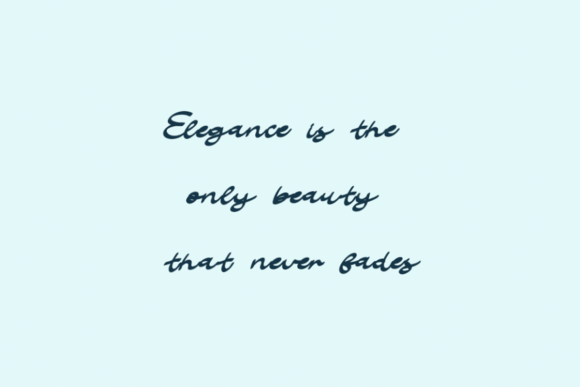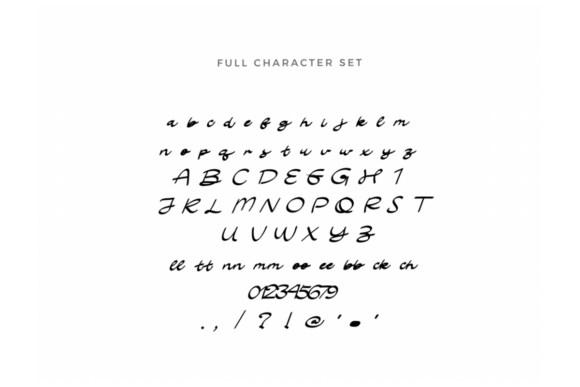
Unleash Your Creativity with Hadsley Font: The Ultimate Guide
Are you tired of using the same old fonts in your designs? Do you want to add a touch of elegance and whimsy to your creations? Look no further than Hadsley Font, a truly unique and charming script font that is sure to take your designs to the next level. In this article, we’ll dive into the world of Hadsley Font, exploring its characteristics, uses, and benefits, and why it’s a must-have for designers and crafters alike.
The Inspiration Behind Hadsley Font
Hadsley Font is inspired by the exquisite art of hand-lettering and calligraphy. Its characteristic features are a beautiful blend of traditional and modern techniques, making it a standout in the world of typography. The font’s creator has carefully crafted each letter to bring together the elegance of handwritten script with a modern twist, resulting in a font that is both sophisticated and playful.
The Characteristics of Hadsley Font
So, what makes Hadsley Font so special? Here are just a few of its key characteristics:
- Lively Curves: Hadsley Font features beautiful, flowing curves that give it a sense of movement and energy.
- Defined Lines: The font’s lines are carefully defined, making it easy to read and understand.
- Handwritten Elegance: Hadsley Font has a distinctly handwritten feel, making it perfect for designs that require a personal touch.
- Modern Twist: The font’s modern twist sets it apart from more traditional script fonts, making it perfect for designers who want to create something unique.
Uses for Hadsley Font
Hadsley Font is incredibly versatile, making it suitable for a wide range of design projects. Here are just a few ideas to get you started:
- Logos: Hadsley Font is perfect for creating unique and memorable logos that will help your brand stand out.
- Invitations: The font’s elegant, handwritten feel makes it ideal for invitations, whether you’re planning a wedding, birthday party, or other special event.
- Branding: Hadsley Font can help you create a cohesive brand identity that is both sophisticated and playful.
- Social Media Posts: The font’s lively curves and defined lines make it perfect for creating eye-catching social media posts that will grab your audience’s attention.
The Benefits of Using Hadsley Font
So, why should you choose Hadsley Font for your design projects? Here are just a few benefits:
- Unique and Memorable: Hadsley Font is a truly unique font that will help your designs stand out from the crowd.
- Elegant and Sophisticated: The font’s elegant, handwritten feel makes it perfect for designs that require a touch of sophistication.
- Versatile: Hadsley Font can be used for a wide range of design projects, from logos and invitations to branding and social media posts.
- Easy to Read: The font’s defined lines make it easy to read, even at small sizes.
In conclusion, Hadsley Font is a truly unique and charming script font that is sure to unleash your creativity and take your designs to the next level. With its lively curves, defined lines, and handwritten elegance, Hadsley Font is perfect for designers and crafters who want to add a touch of whimsy and sophistication to their creations. Whether you’re creating logos, invitations, branding, or social media posts, Hadsley Font is the perfect choice. So why wait? Download Hadsley Font today and start creating your own delightful works of art!
- What is Hadsley Font? Hadsley Font is a unique and charming script font inspired by exquisite hand-lettering and calligraphy.
- What are the key characteristics of Hadsley Font? Hadsley Font features lively curves, defined lines, handwritten elegance, and a modern twist.
- What can I use Hadsley Font for? Hadsley Font can be used for logos, invitations, branding, social media posts, and more.
- Is Hadsley Font easy to read? Yes, Hadsley Font is easy to read, even at small sizes, thanks to its defined lines.